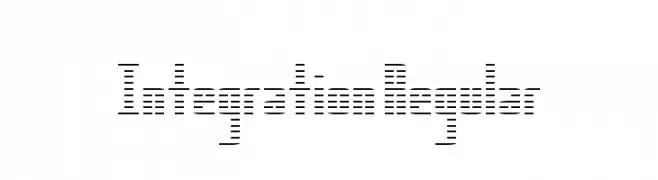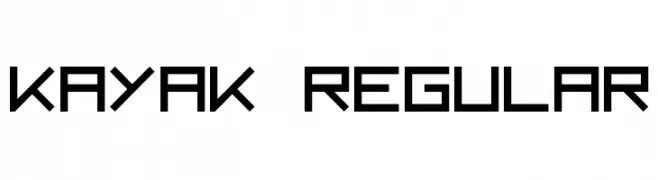
A segmented, digital-style font with a futuristic aesthetic.
A playful, hand-drawn font with bold, rounded characters and a casual style.
A bold, geometric font with sharp angles and block-like shapes.
A bold, geometric font with a futuristic, digital aesthetic.
A playful, bold font with a speckled texture and rounded, cartoonish characters.
A bold, decorative font with spiky, star-like embellishments.
A playful, hand-drawn font with a whimsical and lively style.
A geometric, angular font with a futuristic and bold design.
A bold, cartoonish font with thick, rounded edges and a playful style.
A playful, childlike font with rounded, irregular strokes.